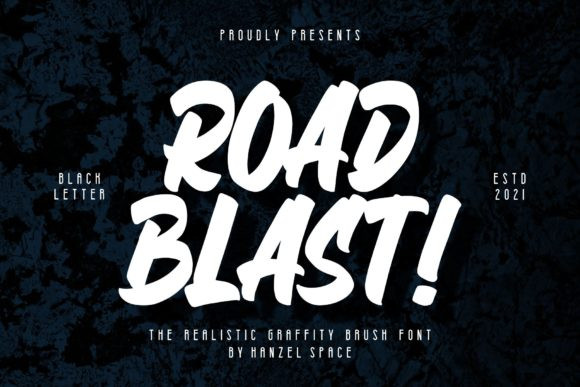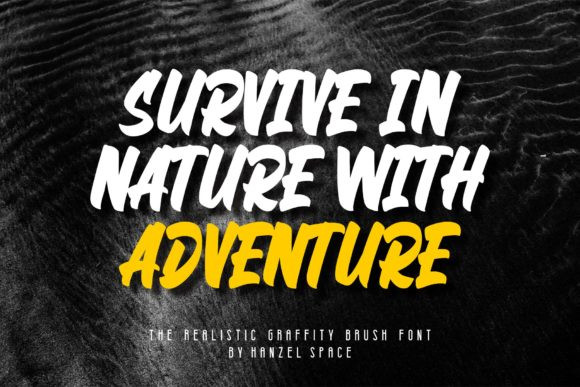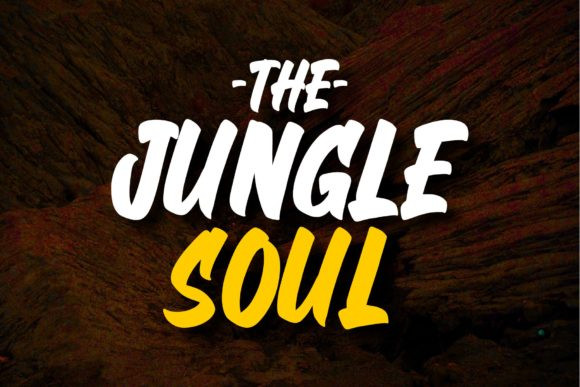
Road Blast! Font
Road Blast! is a natural brushed display font, inspired by a vintage aesthetic sign painting. This font reads as strong, confident, and dynamic and can add tons of nostalgic character to your designs.